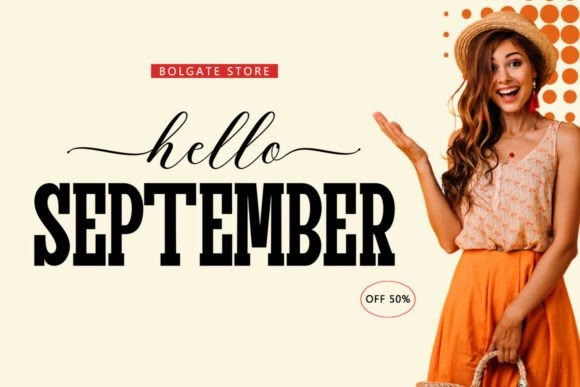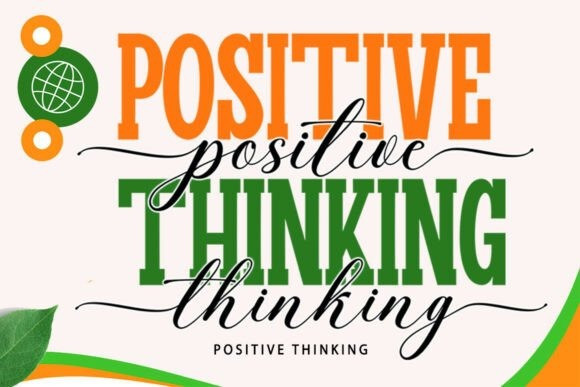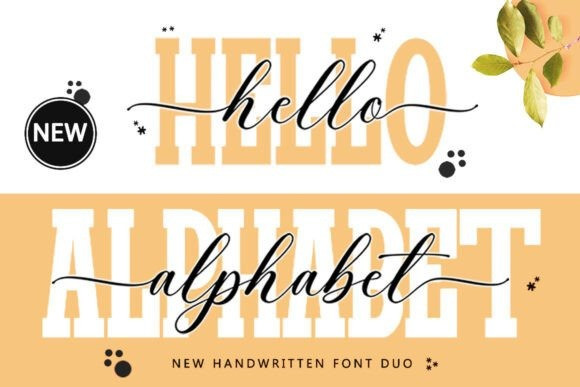
Hello Alphabet Font Duo
Hello Alphabet Font Duo is a modern handwritten font duo that combines a bold slab serif with an elegant script. The slab serif delivers strength and impact, while the flowing script adds a touch of charm and sophistication. Together, they create a striking contrast perfect for logos, invitations, posters, branding, and stylish social media graphics.